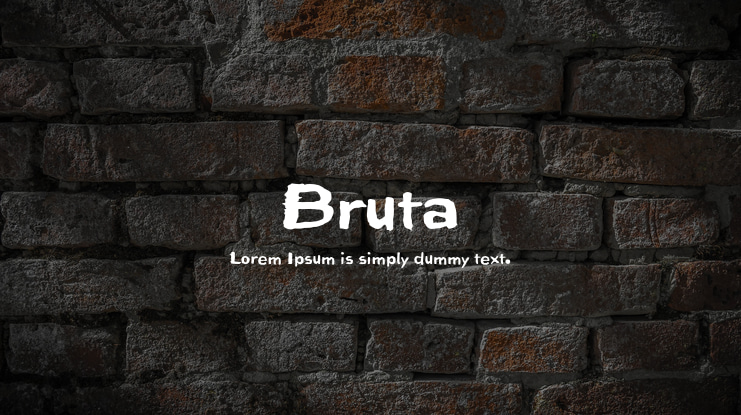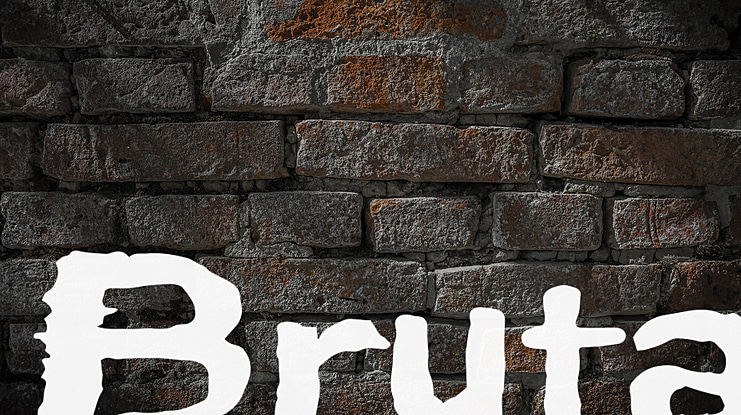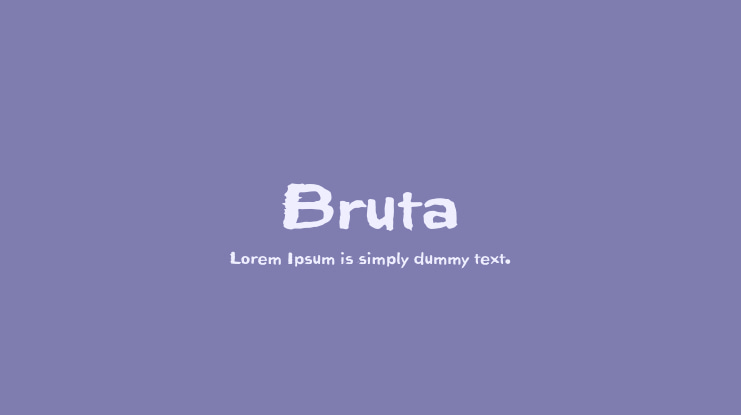
Bruta Font
Ingo Zimmermann
An alphabet originally carved in wood
The German term for characters or letters is Buchstaben, literally Buche (beech) and Stab (rod or stick), and dates back to the Germanic custom of carving runic characters in beechwood sticks. On New Years Eve, 2014, I used the occasion to cut real beech characters myself. I carved all the characters of this font in woodcarving manner, without tracing and mirror-inverted, in smoothly planed beech rods. After printing on paper, the digital font you see here was created from the negative typeface.
Originally planning an alphabet of capital letters only, I ended up carving figures, punctuation marks and lower case letters after all. The capital letters emphasize alternation between bold and fine strokes, which is familiar in Roman typefaces. In this way, the upper case text in Bruta Woodcut obtains its very own aesthetics.
The ductus on the lower case letters is plainly not as distinct. They look more like a classical sans serif, which becomes clear as the smaller a text is set in Bruta Woodcut, the more legible it becomes.
The original image was negative. In contrast, the font consists of the positive typeface. Bruta Woodcut includes lots of ligatures and stylistic alternates for some symbols.